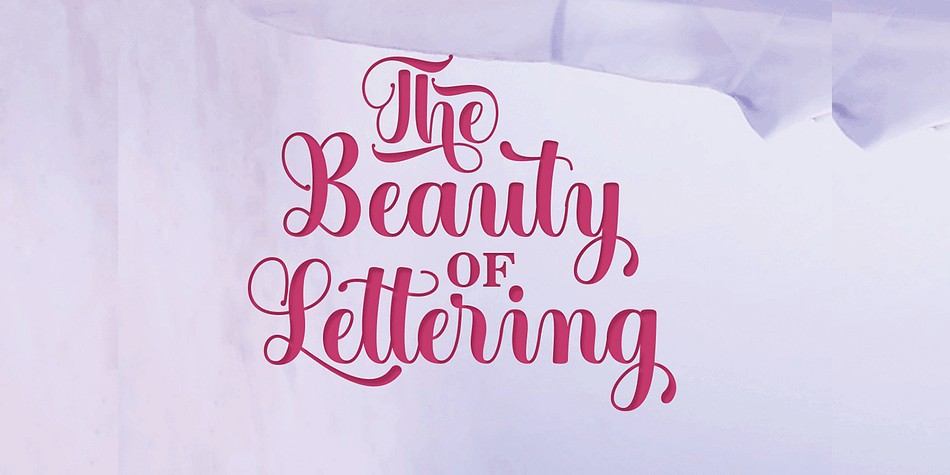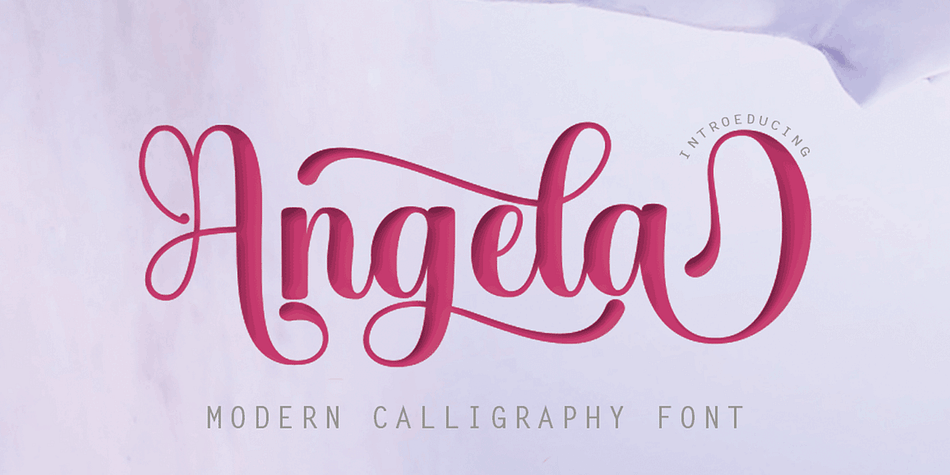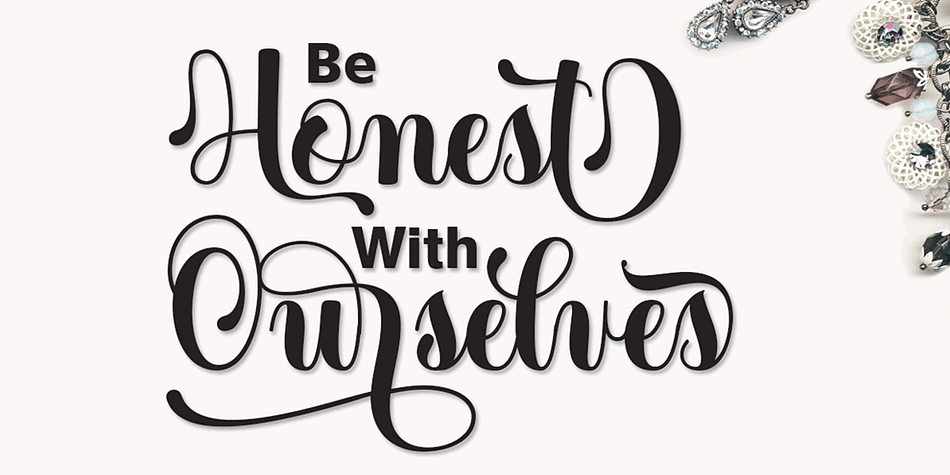
Designed by Rahmat Hidayat, Angela is a script font published by RtCreative.
Angela, a work that is purely handwritten, has natural characteristics. It’s perfect for invitations, signatures, blogs, social media, business cards, product brands.
Angela is a simple font that has Stylistic standards, Stylistic Alternatives. and includes uppercase and lowercase letters, numbers and punctuation.